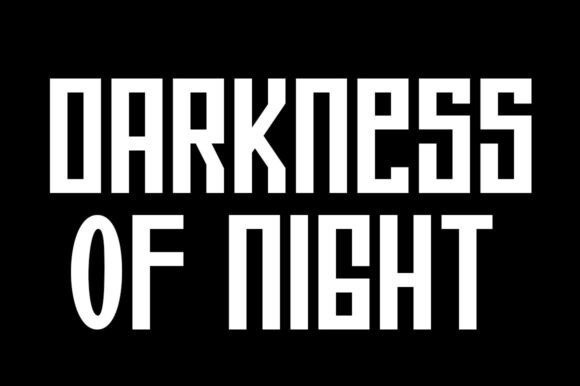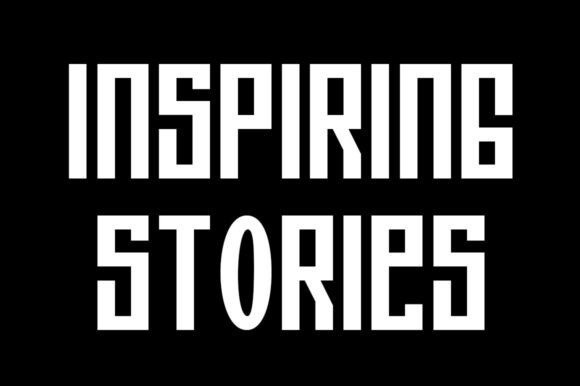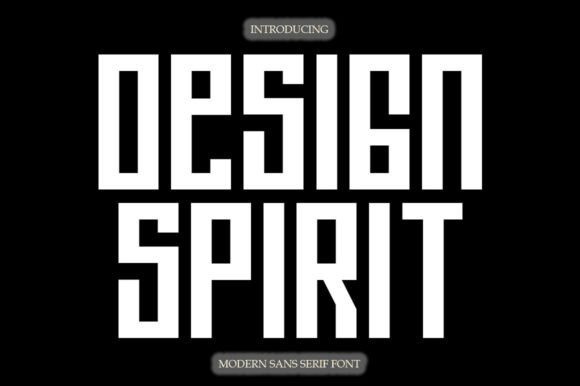
Design Spirit Font
Design Spirit Font attracts such a subtle, clean, feminine, sensual, glamorous, simple, and very readable typeface. The classic style is perfect to apply in various formal forms such as invitations, labels, menus, Logos, fashion, makeup, stationery, letterpress, romantic novels, magazines, books, greeting/wedding cards, packaging, labels
Design Spirit also features a strong neoclassical sans serif typeface with high contrast, a cool, stylish, and unique look with alternative fonts, Ligatures, and multilingual support